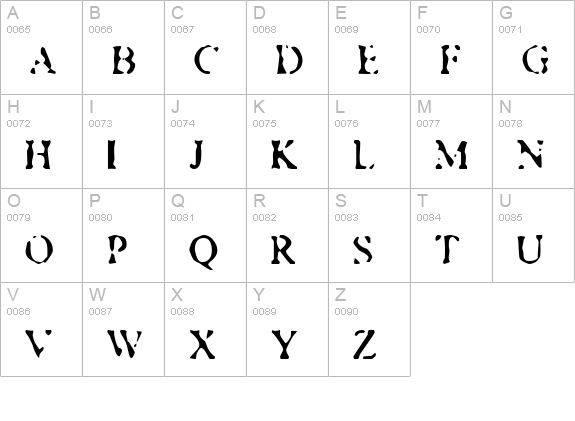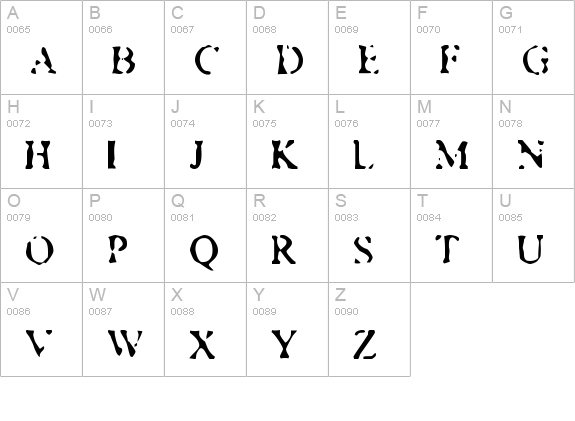
Musty Privates Font Details
Introducing Musty Privates font, a unique and quirky typeface that adds a touch of personality to your designs. With its playful curves and distinctive style, Musty Privates is sure to make a statement in any project. This font is perfect for headlines, logos, posters, and more. What makes Musty Privates even better is that it is completely free to download. You can get your hands on this delightful font at FontsMarket.com and start using it in your designs right away. Don't miss out on the opportunity to add some fun and creativity to your work with the Musty Privates font. Download it now and let your imagination run wild!